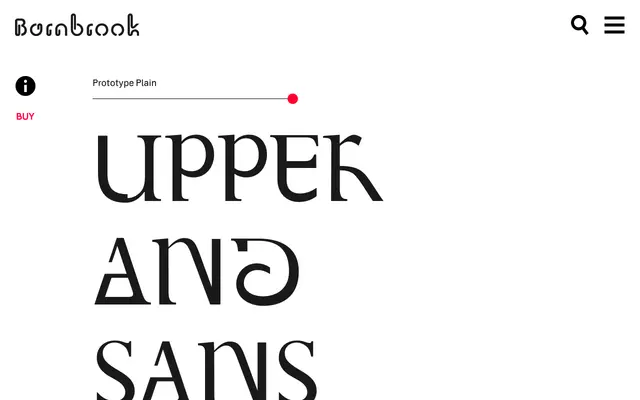
Prototype
An experimental typeface from Barnbrook that collapses the distinction between serif and sans-serif, and between uppercase and lowercase, into a single unified alphabet.
Prototype emerged from a period of design's own identity crisis, posing the question of whether a rational, universal alphabet is desirable or even coherent. It merges serif and sans-serif letterforms and sidesteps the uppercase/lowercase divide, producing something that is none of those things entirely. The result is a conceptual piece that interrogates the conventions of type design rather than serving conventional typographic needs.
Prototype deliberately blurs the boundaries between serif and sans-serif, uppercase and lowercase, making it an experimental display typeface that resists conventional classification.